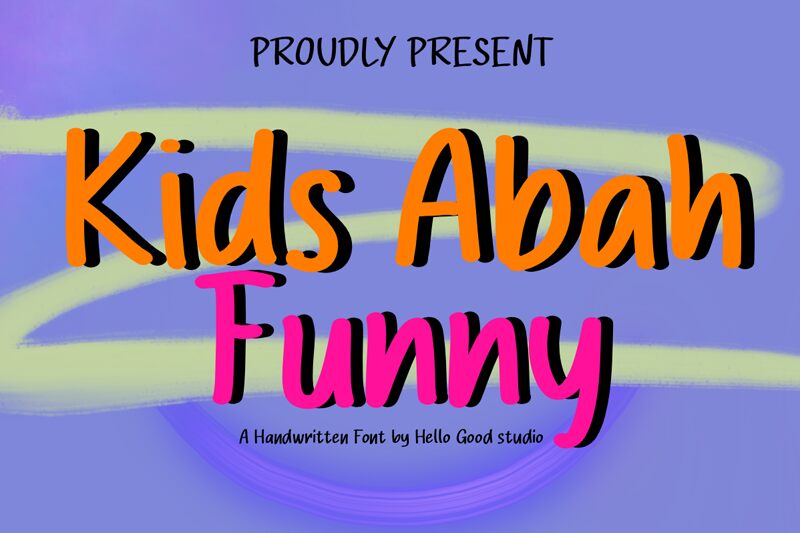
Kids Abah Funny by Hello Good Studio is a free playful handwritten font with chunky strokes, rounded ends, and a loose, childlike bounce. The letters feel drawn with a broad marker, mixing soft curves with slightly wobbly proportions that keep the mood cheerful and a little mischievous.
It fits naturally in kids' book covers, classroom posters, birthday invitations, snack packaging, and YouTube title cards where a friendly voice matters more than polish. As a free font, it also works well for short headlines and name tags, since the big rounded forms and casual rhythm keep even brief words feeling lively.